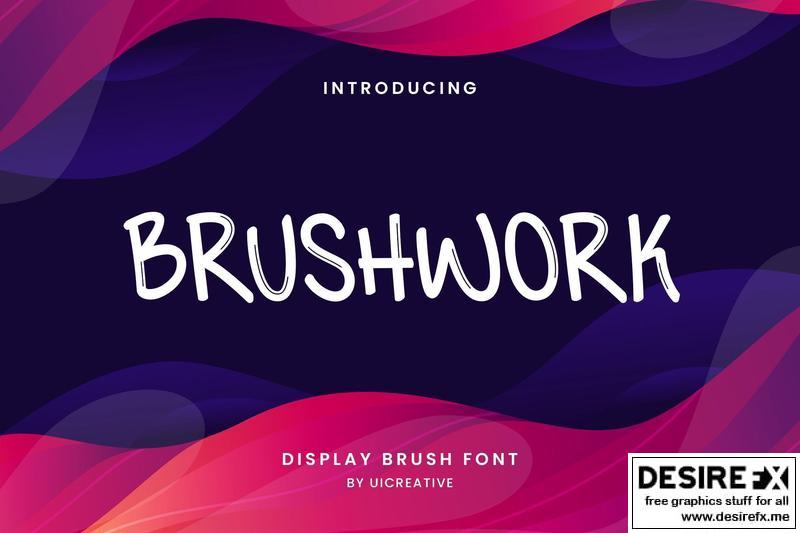
Brushwork Display Brush Font QPKM8HM
Introducing our new product the name is Brushwork Display Brush Font. The modern signature font feels beautiful classy, elegant, and modern. This font is perfectly suited for a wide variety of projects, such as signature, stationery, logo, wedding, typography quotes, magazine or book covers, website headers, clothing, branding, packaging design, and more. Also for fashion-related branding or editorial design and displays both masculine and feminine qualities.